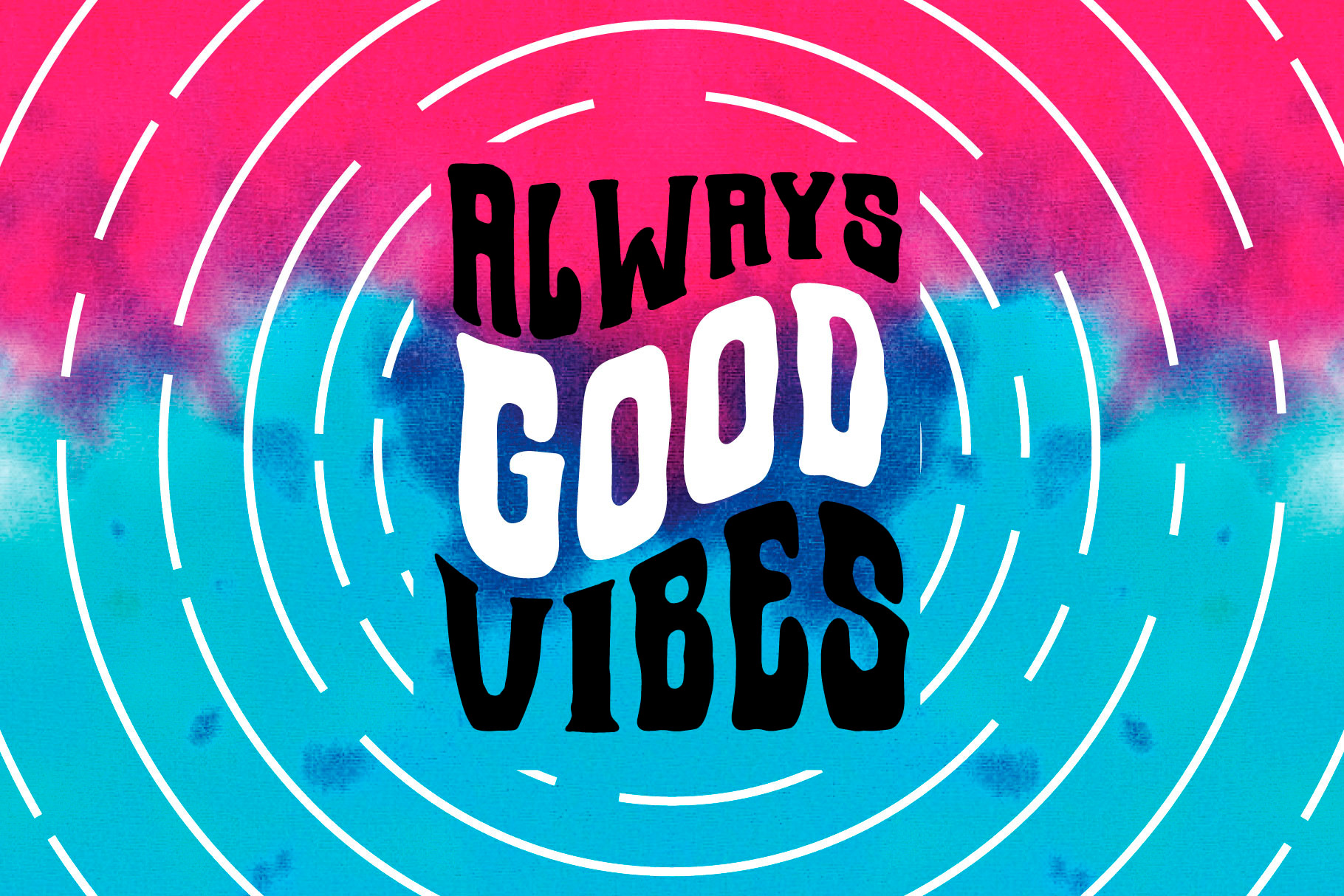
Lovember Typeface + Bonus
Lovember is the lovely font in November with handmade shape was inspired from 90's hipster and tie dye style could help to good display, uses for lyric music video, album cover, labeling, clothing, movie sceen, band logo,film title, gigs, or music poster, the skies is your limit :). It comes with 246 characters included Uppercase, Lowercase, Numbers, Punctuations, Currency, and Accents. ;)